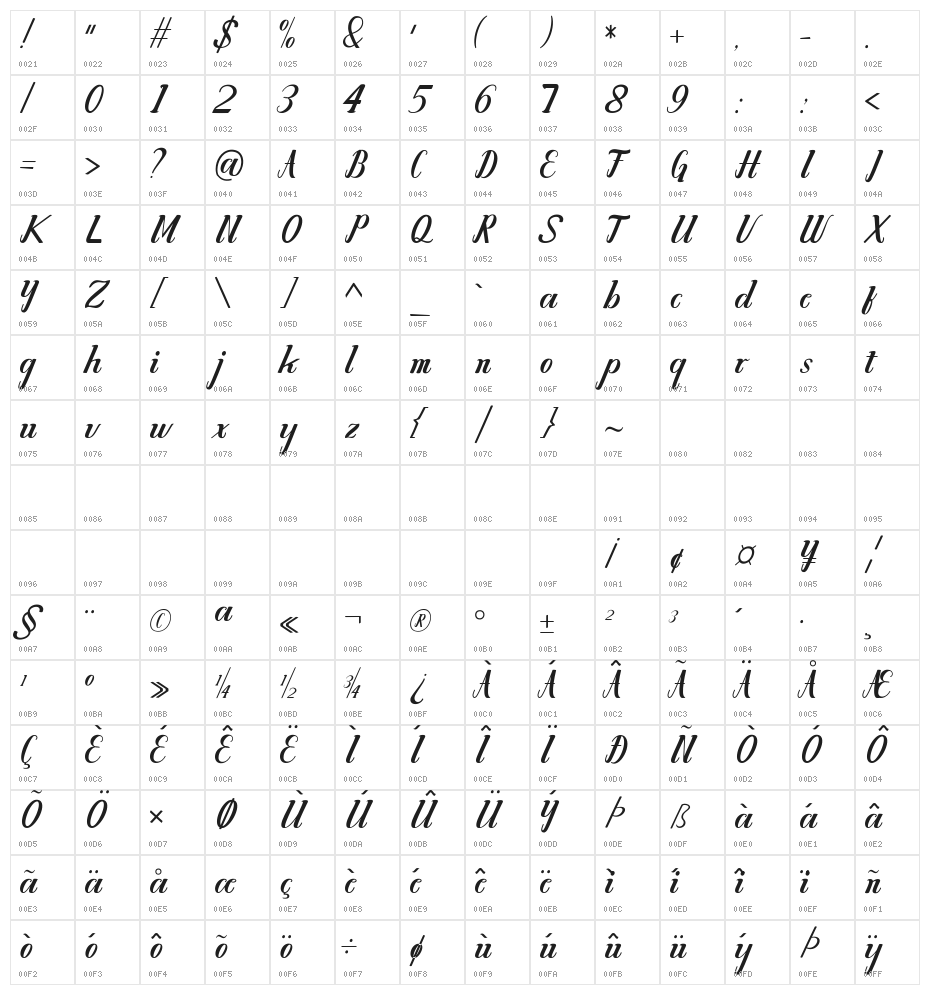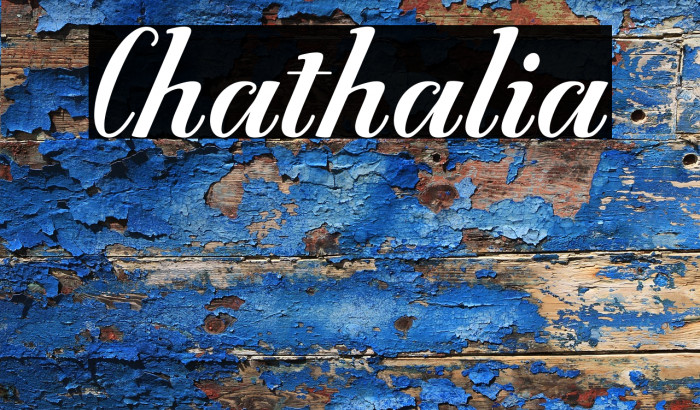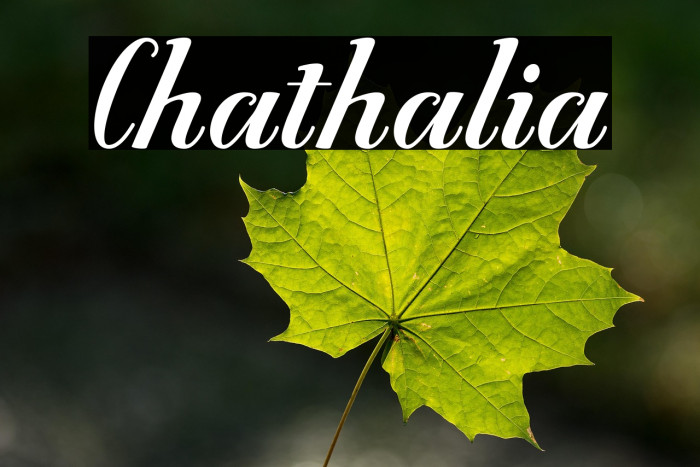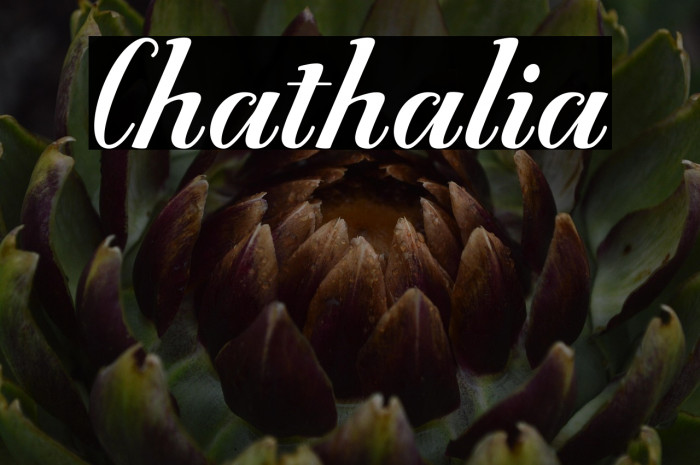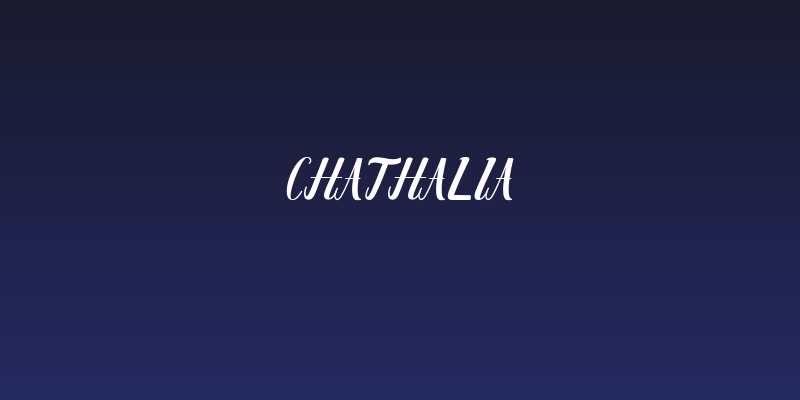
Chathalia Font
Chathalia Description
This elegant script font features a flowing, cursive style with smooth, connected strokes that mimic the fluidity of handwriting. The uppercase letters are ornate and slightly larger, while the lowercase letters maintain a consistent rhythm and balance. The numerals are designed with a similar flair, ensuring a cohesive look across all characters. Special characters are thoughtfully integrated, maintaining the font's overall aesthetic. The font's graceful curves and sophisticated appearance make it ideal for projects that require a touch of elegance and refinement.
| Overall Style | Elegant |
| Use Case | Logos, Invitations, Decorative text |
| Proposed Projects | Ideal for wedding invitations, elegant branding, greeting cards, and upscale packaging. |